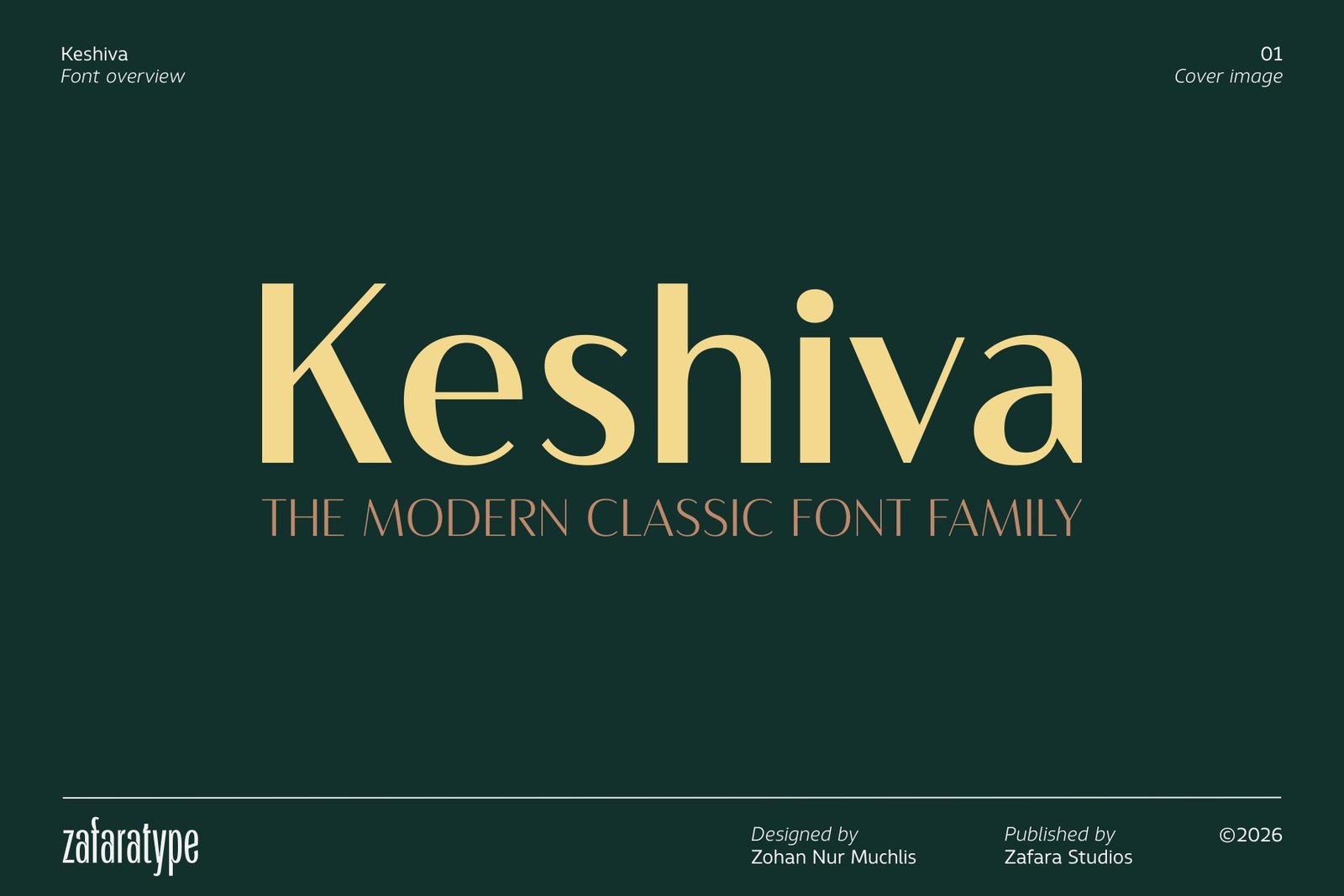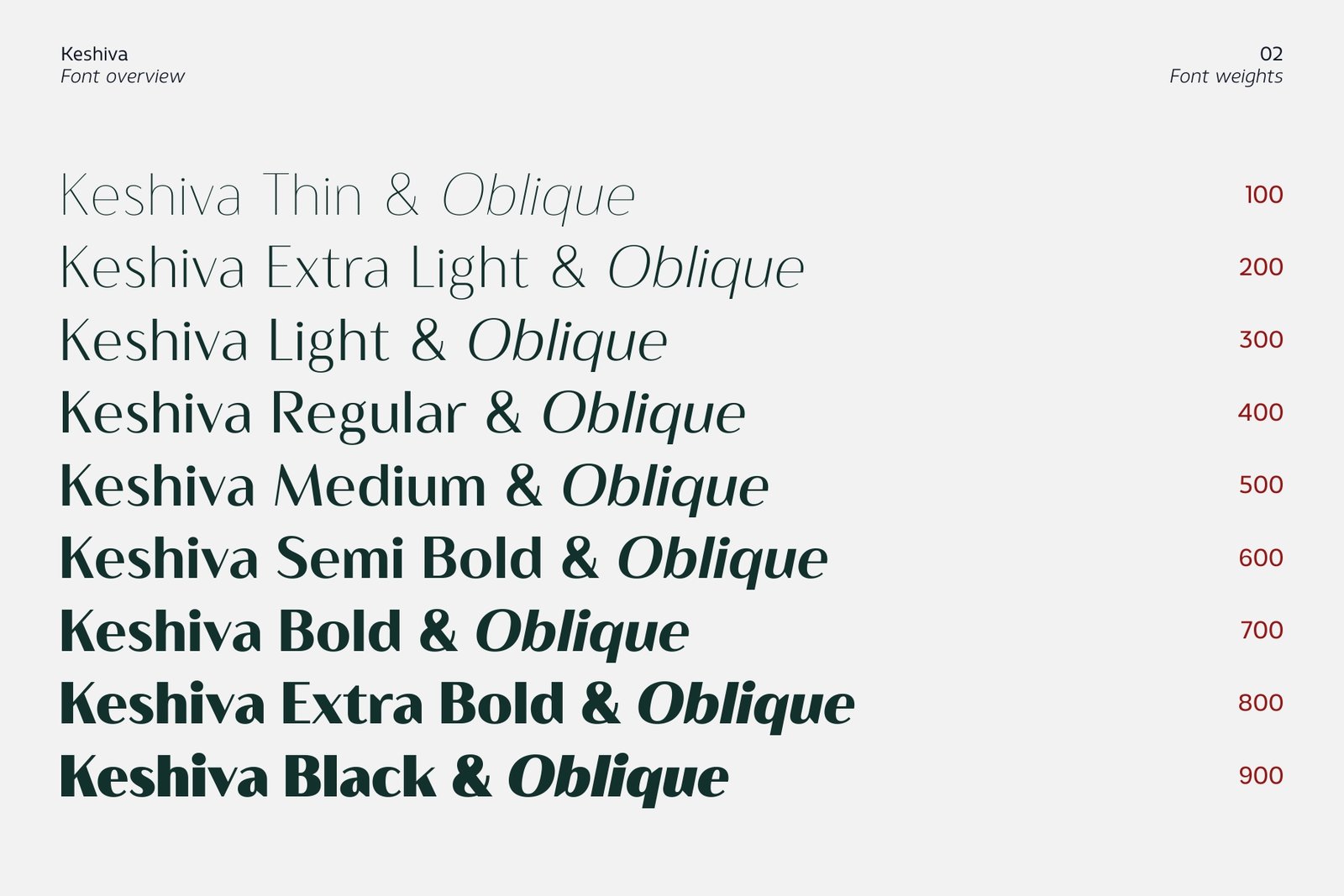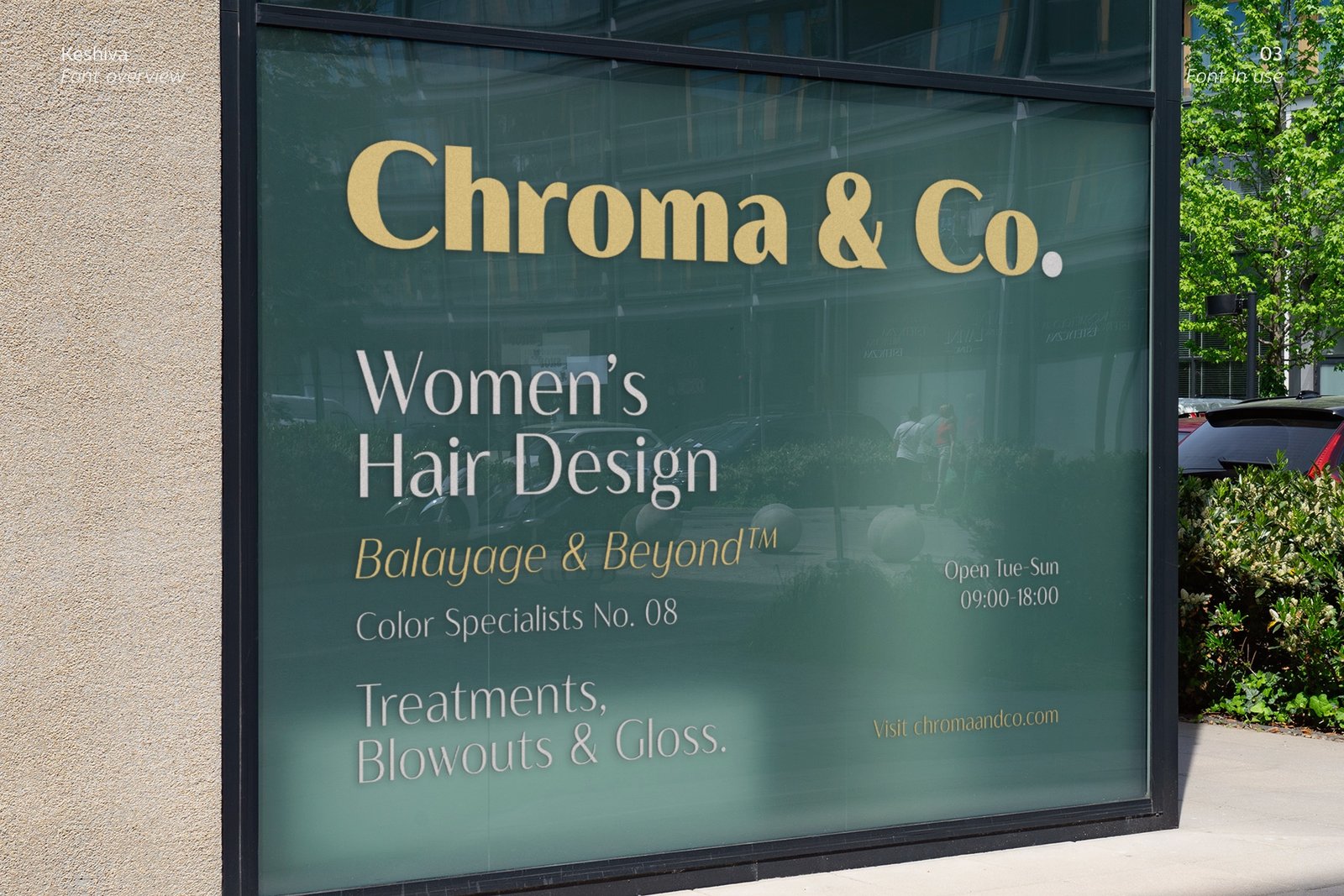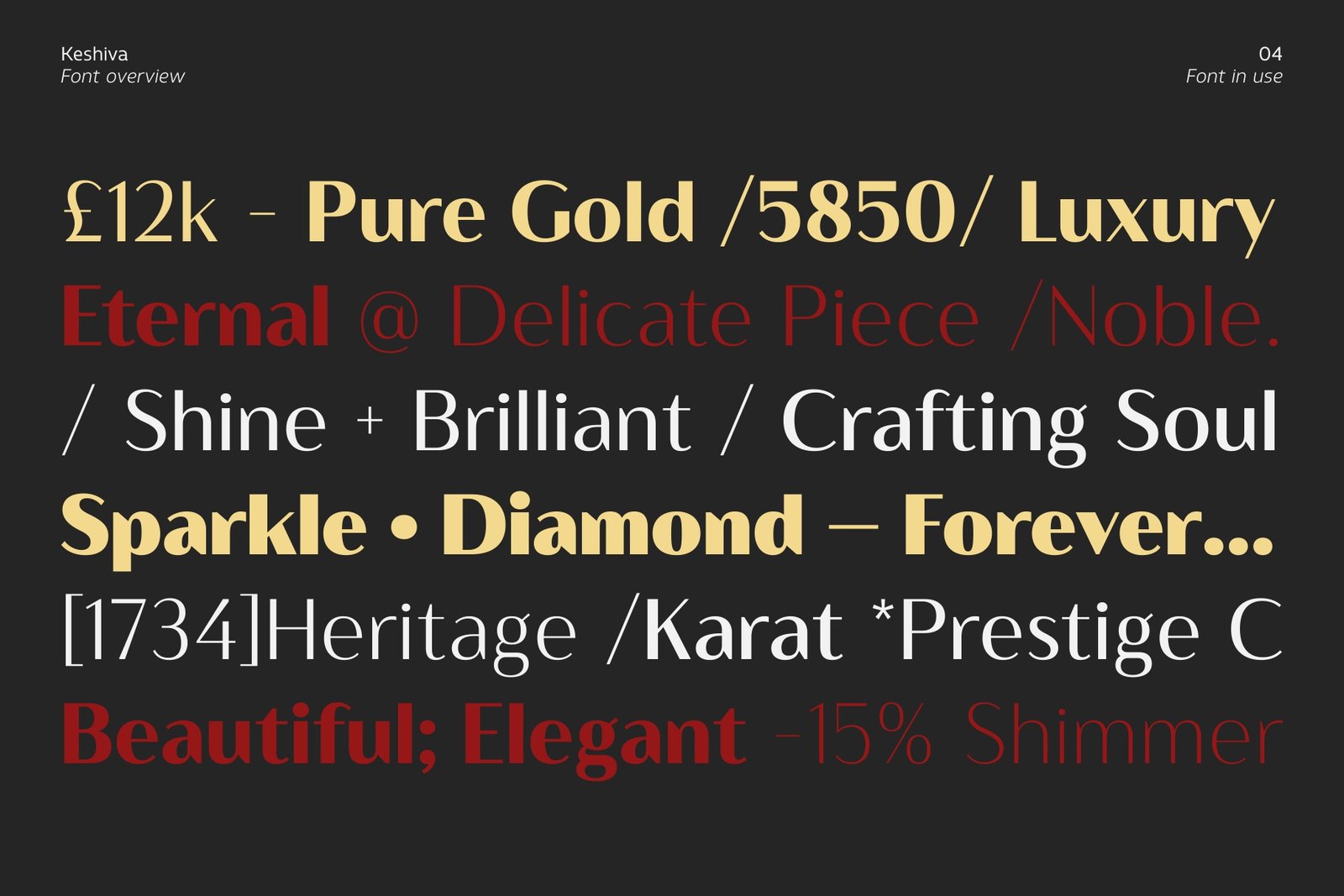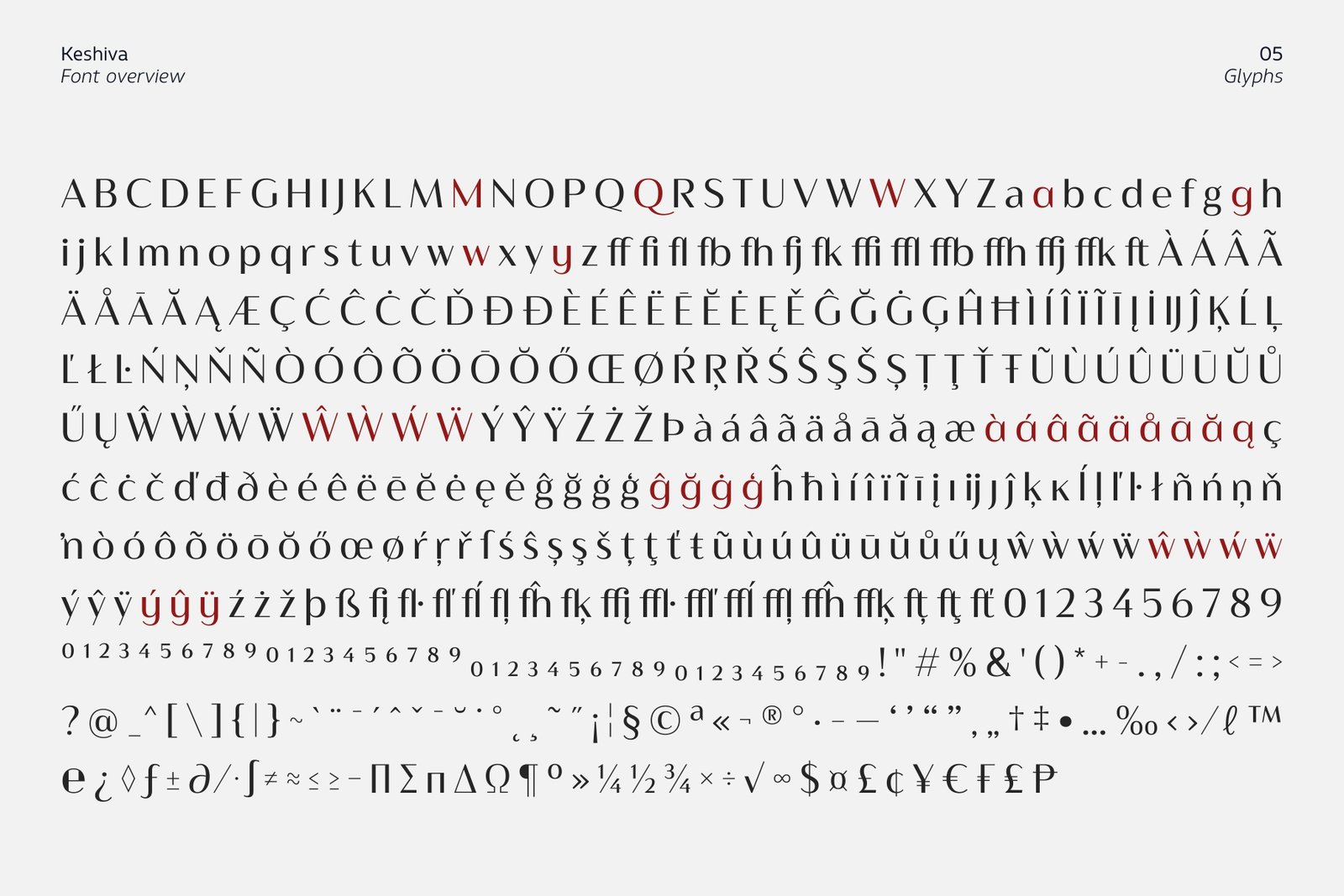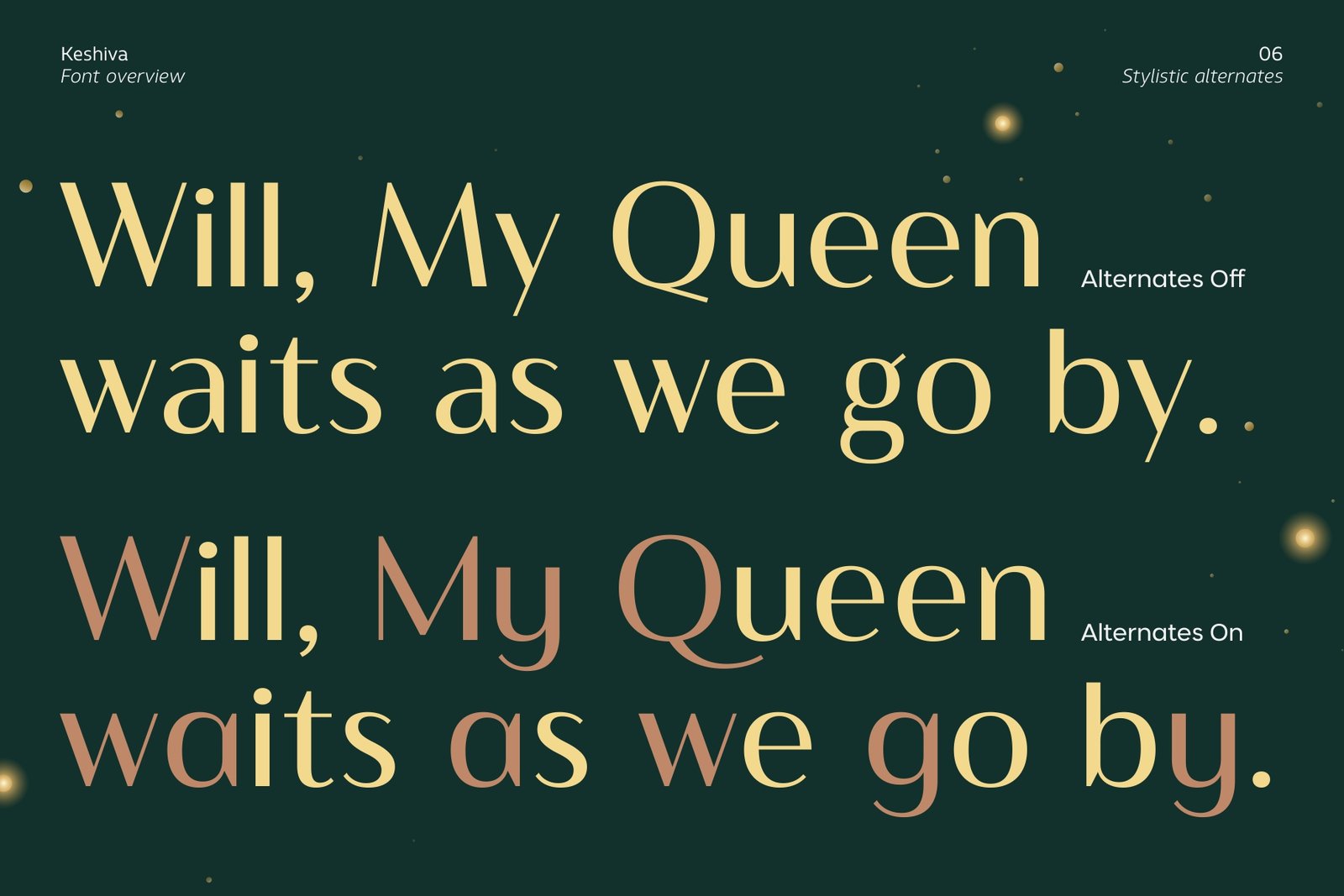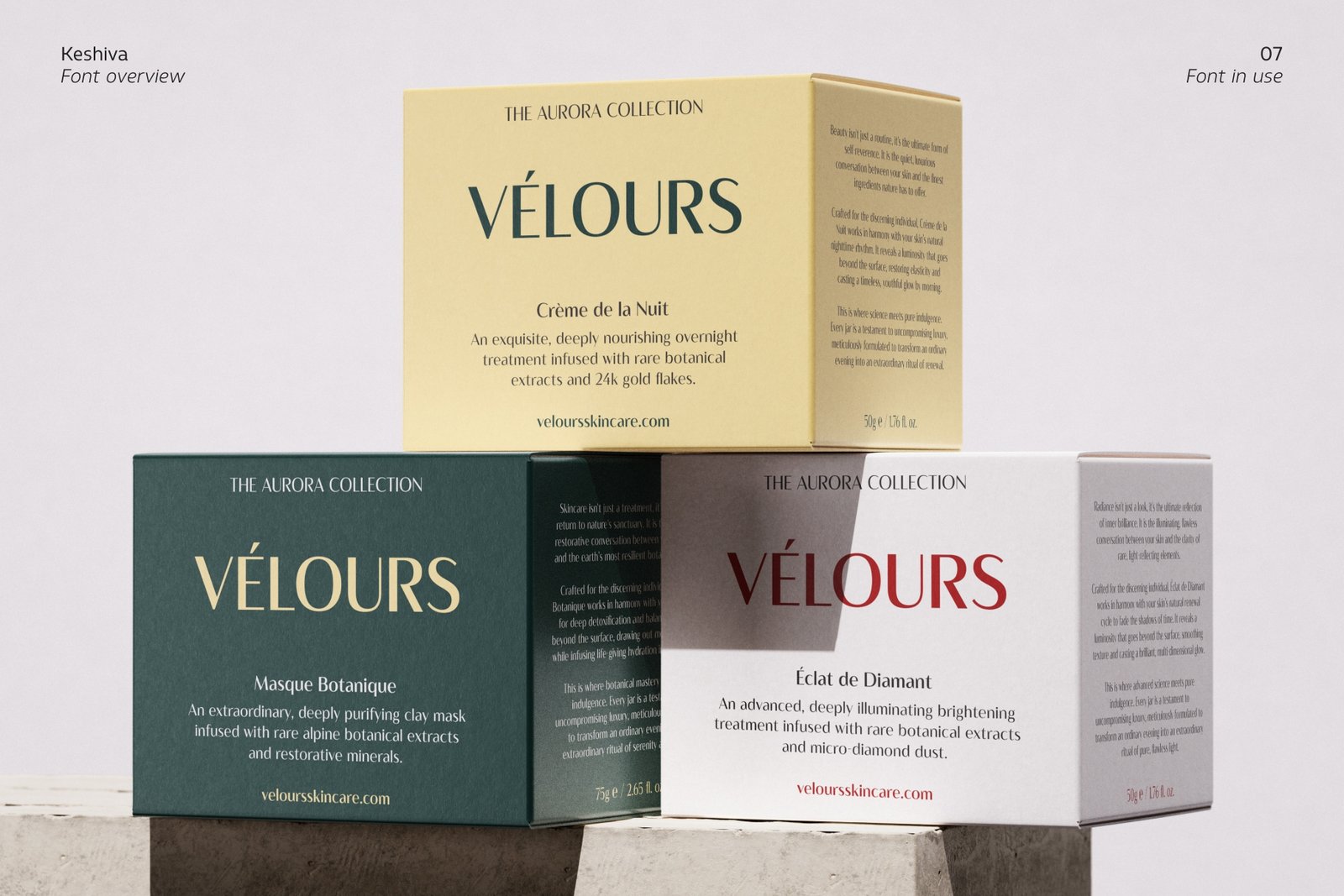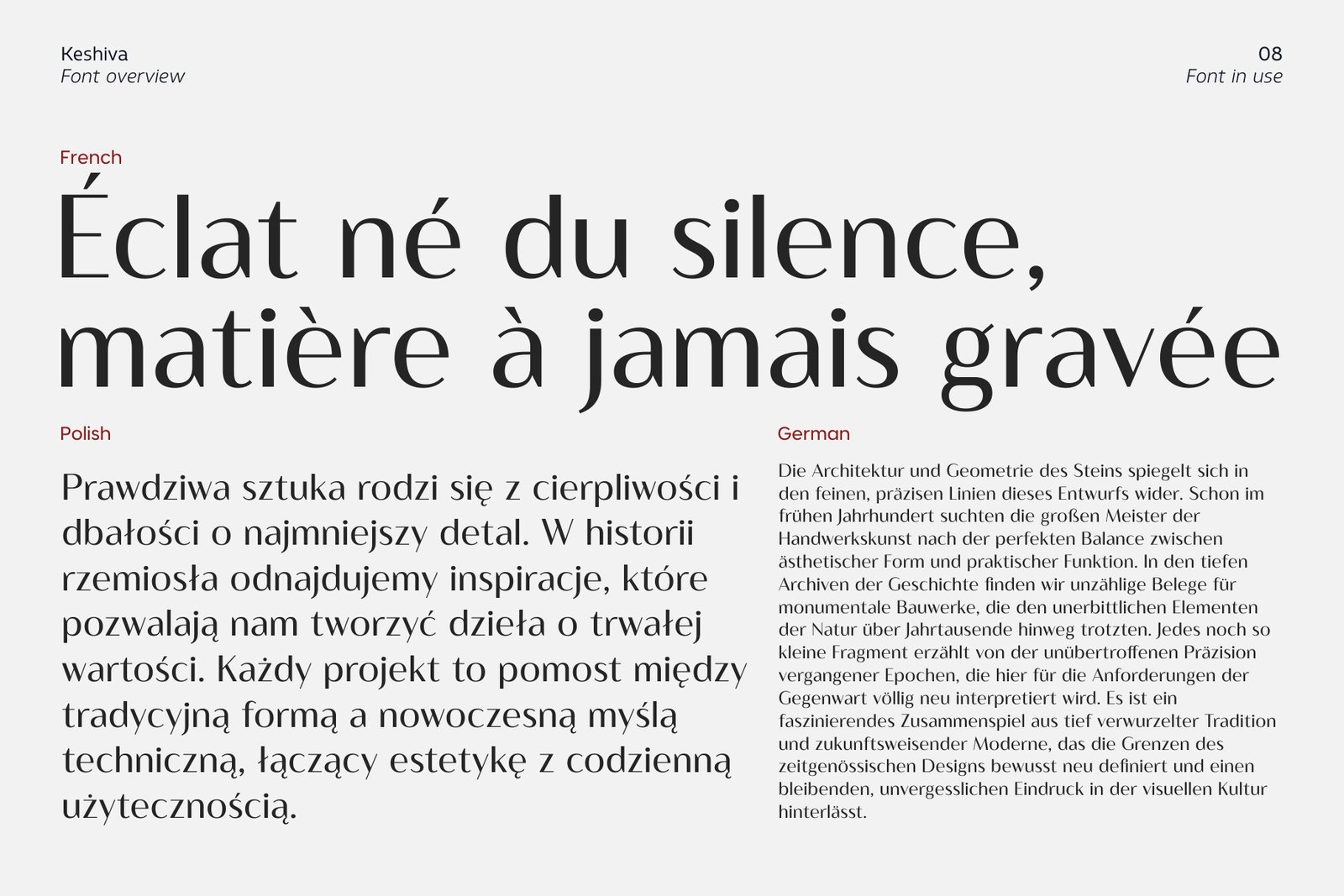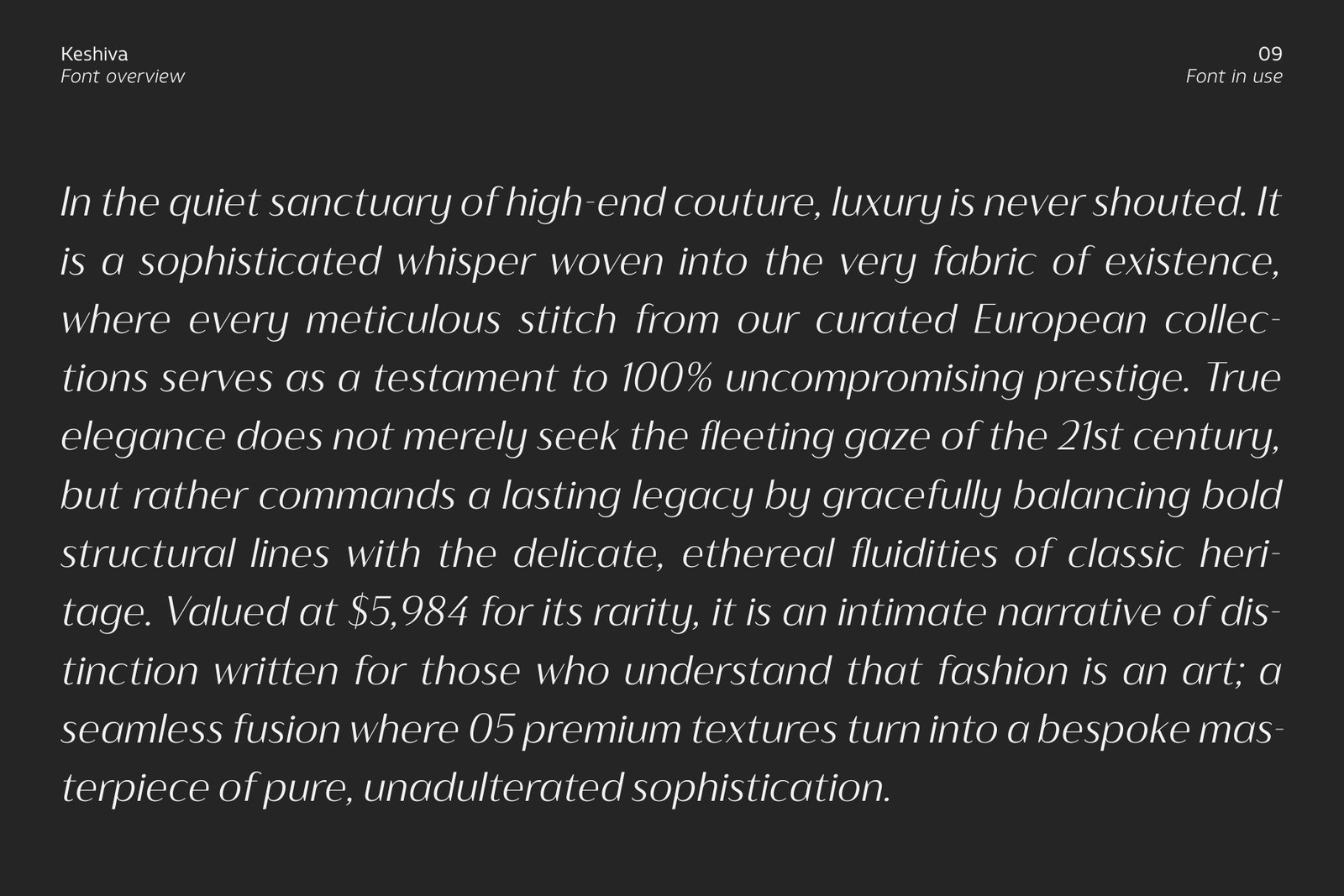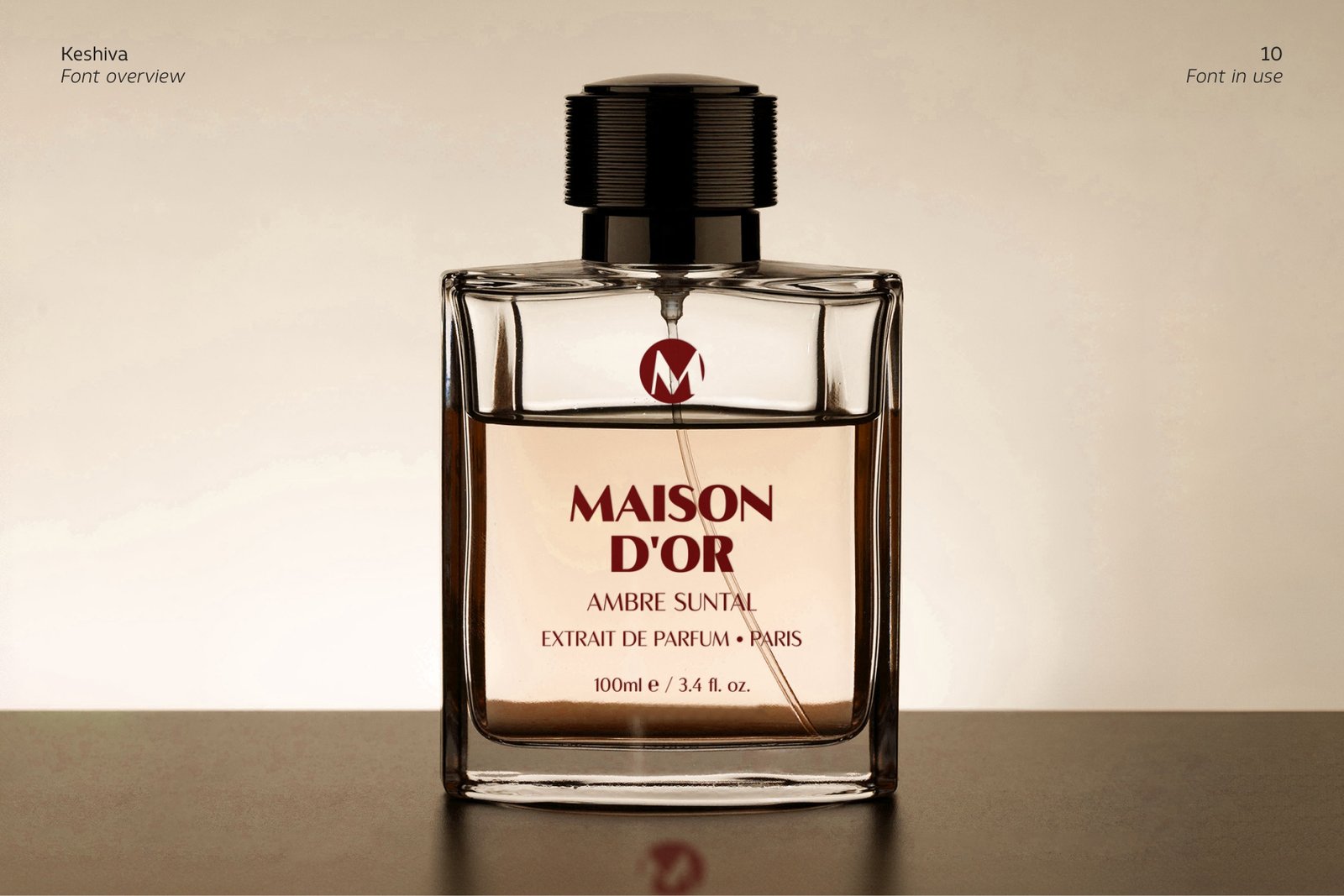
Keshiva font cover display featuring the main typeface name in a warm cream tone, accompanied by the tagline "The Modern Classic Font Family" on a deep dark green background.
Typographic specimen showing the full range of 18 styles of Keshiva font, including 9 upright weights and 9 oblique styles from Thin 100 to Black 900.
Keshiva typeface used in a real-world outdoor glass window signage mockup for a luxury salon named "Chroma & Co. Women's Hair Design".
Editorial typographic poster showcasing Keshiva font weights mixed with currency symbols, percentages, and luxury-themed keywords like "Pure Gold", "Eternal", and "Diamond" on a dark charcoal background.
Complete character map showcase of the Keshiva font family, displaying 524 glyphs including uppercase, lowercase letters, ligatures, numbers, and multilingual Latin accent marks.
Visual comparison of Keshiva font showing "Alternates Off" in gold letters vs "Alternates On" in gold and copper letters, highlighting the swashes on letters like W and Q.
Three luxury skincare boxes stacked together for "VÉLOURS Crème de la Nuit", showcasing Keshiva typeface on cream, dark green, and white paper textures.
Editorial layout showing blocks of text rendered in the Keshiva font family across multiple European languages including French, Polish, and German.
A full paragraph of text about high-end couture set in Keshiva Oblique font on a dark background, highlighting its fluid motion.
Elegant clear glass perfume bottle with liquid inside titled "MAISON D'OR AMBRE SUNTAL Extrait de Parfum Paris" utilizing Keshiva typography on a neutral background.
Typographic layout showcasing Keshiva font's Latin-based language support with words in various European languages using diacritics, accents, and special characters in black and red text on a light gray background.
Typographic chart on a rich dark red background demonstrating the OpenType features of the Keshiva typeface in gold text, including superscript, subscript, ligatures, fractions, and stylistic alternates.